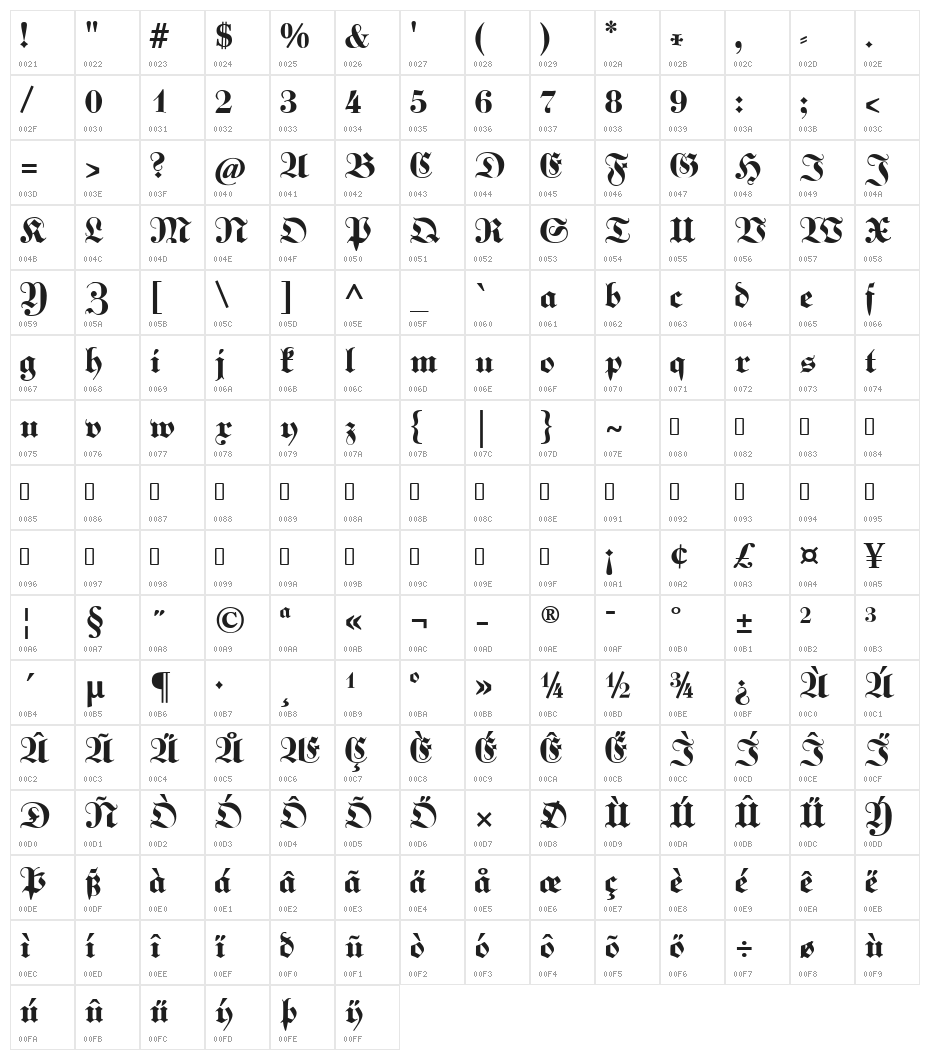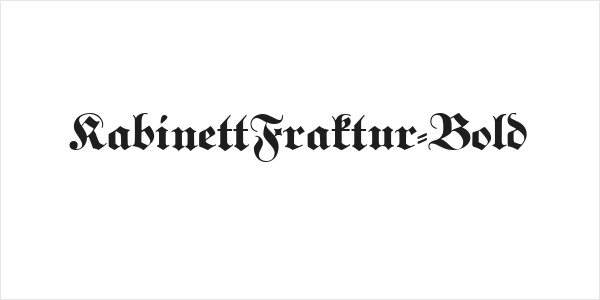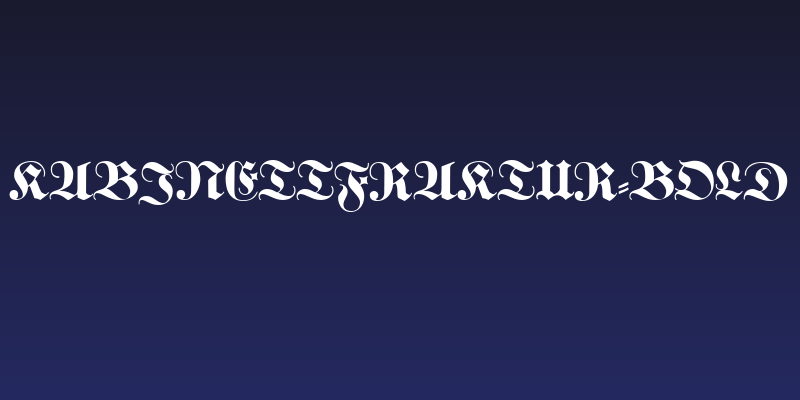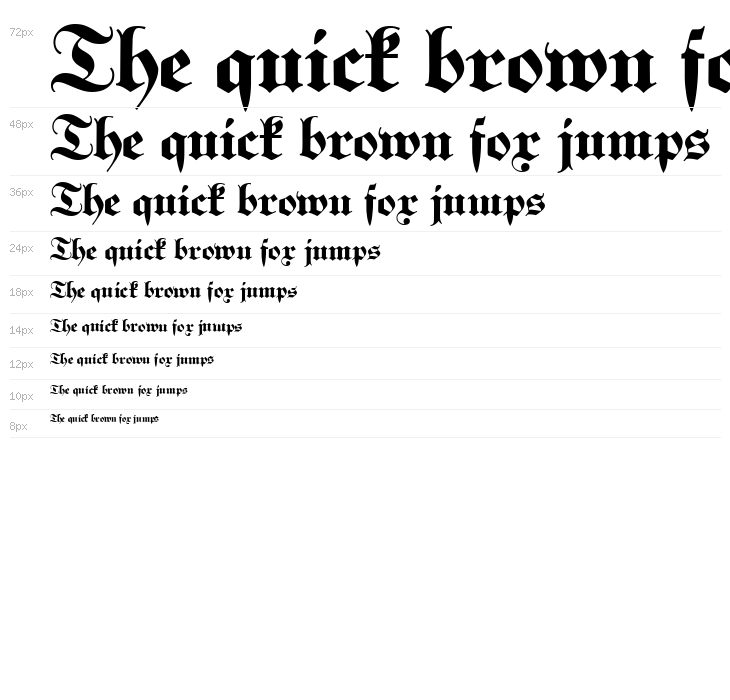
KabinettFraktur-Bold Font
KabinettFraktur-Bold Description
This font exhibits a traditional Blackletter style, characterized by its intricate and ornate letterforms. The uppercase letters feature sharp, angular strokes with decorative flourishes, while the lowercase letters maintain a consistent style with slightly more rounded elements. The numerals are bold and maintain the same decorative quality, ensuring they stand out. Special characters are equally ornate, fitting seamlessly with the overall aesthetic. This font's bold weight and high contrast between thick and thin strokes make it particularly striking and suitable for impactful designs.
| Use Case | Headlines, Logos, Decorative text |
| Proposed Projects | Ideal for historical or medieval-themed projects, branding for luxury products, book covers, and event invitations. |